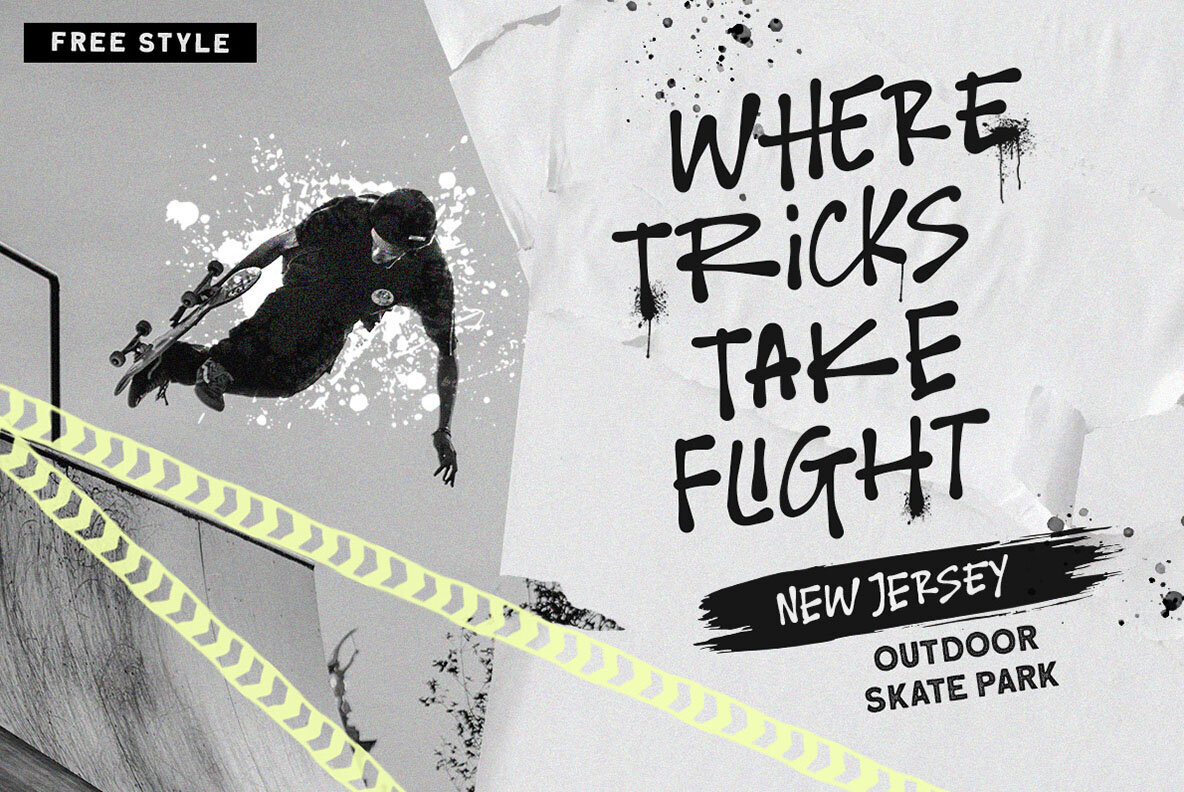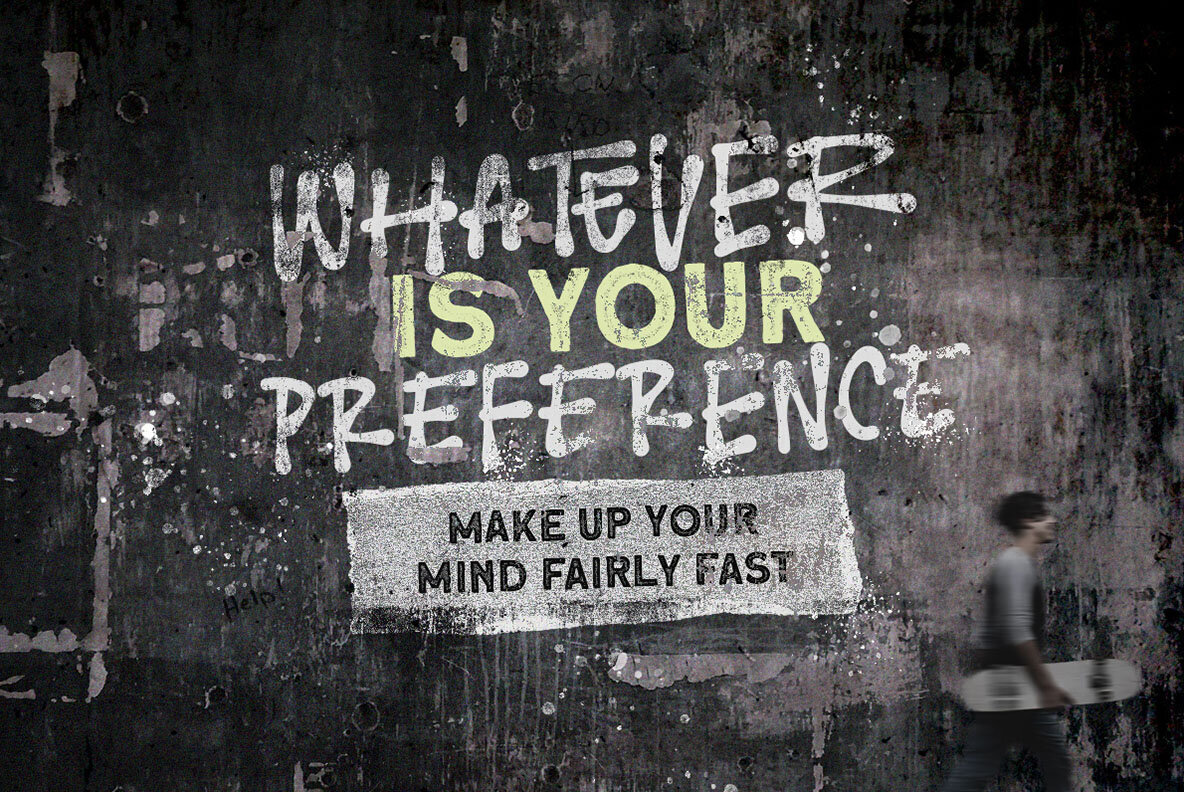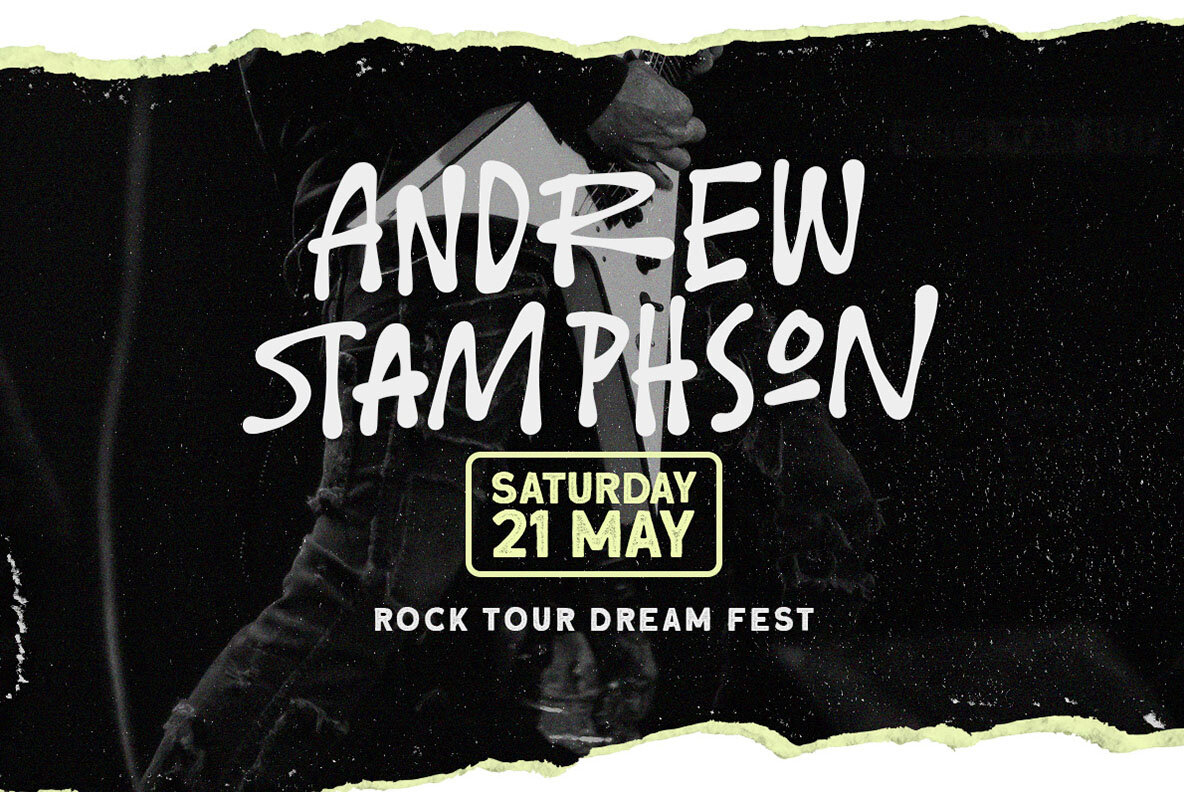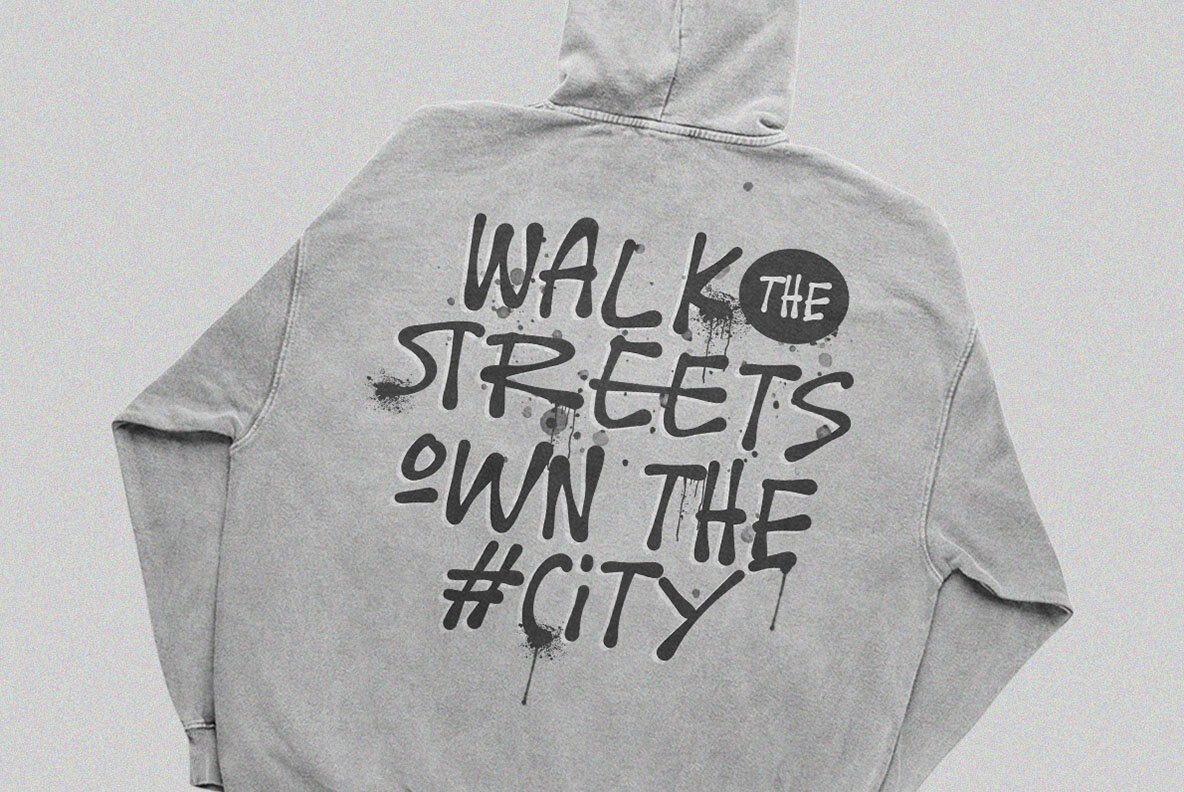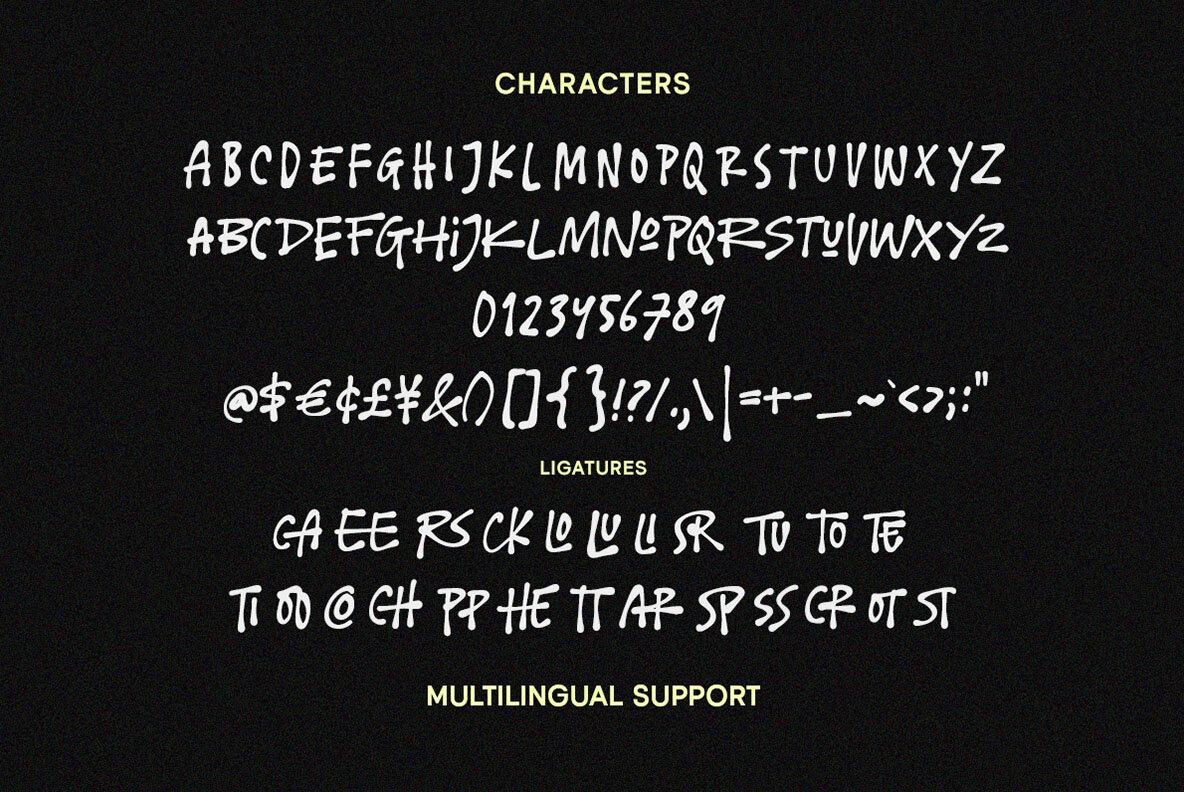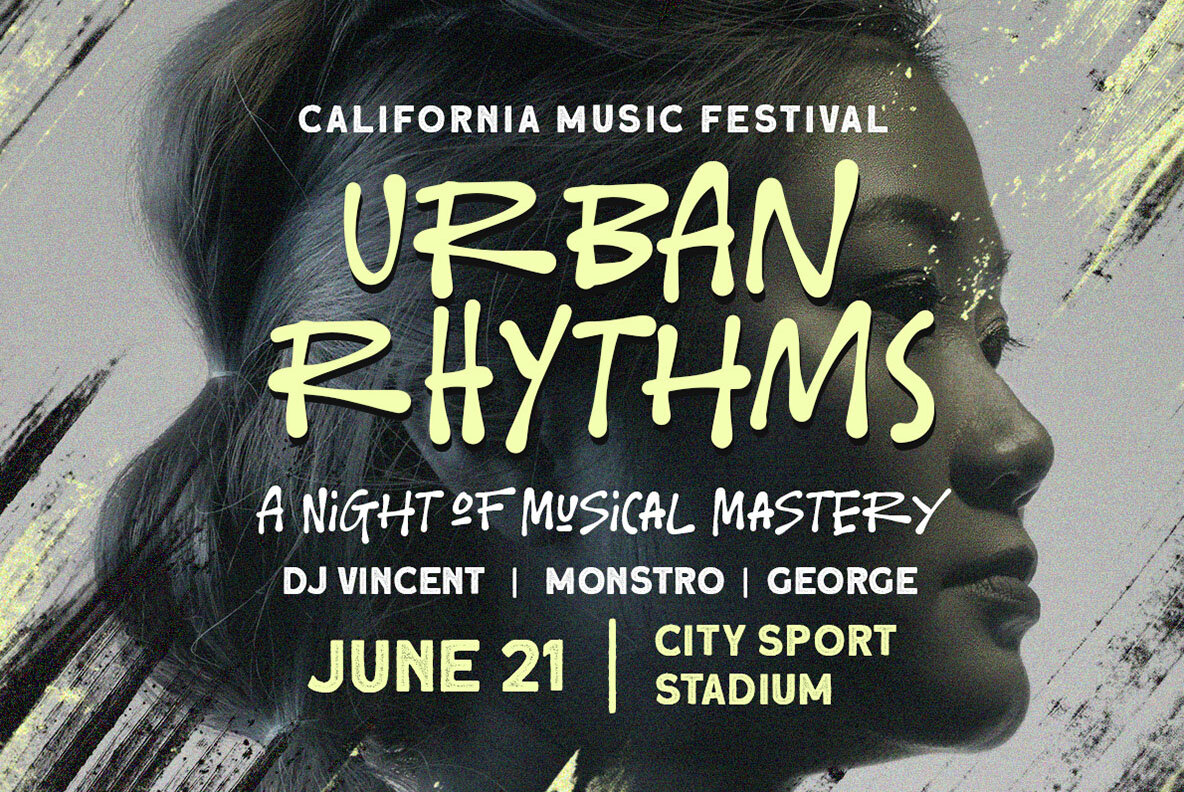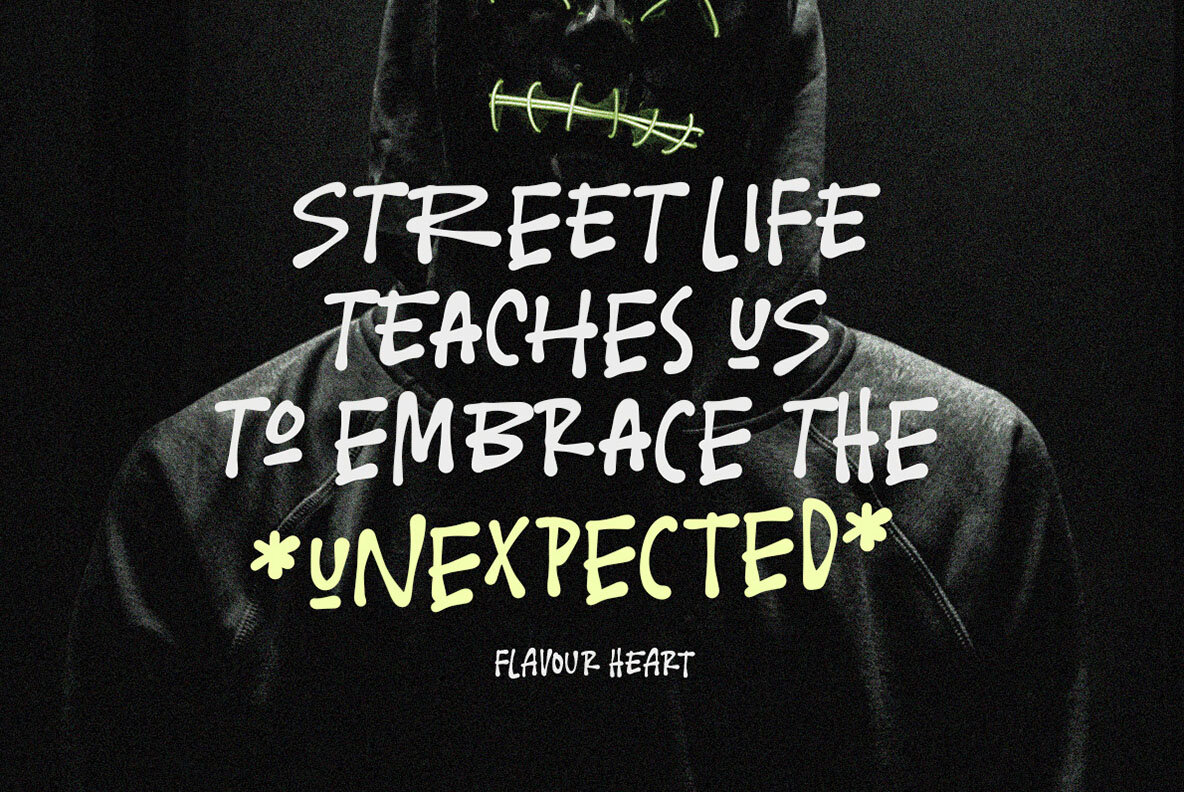
Flavour Heart is a organic handwritten typeface, which is purposely made for headline, display or logotype, and signature which need a standout appearing. This font is also suitable to be applied especially in logo, and the other various formal forms such as invitations, labels, logos, magazines, books, greeting / wedding cards, packaging, fashion, make up, stationery, novels, labels or any type of advertising purpose.
• Uppercase & lowercase
• Numbers and punctuation
• Alternates & Ligatures
• Multilingual